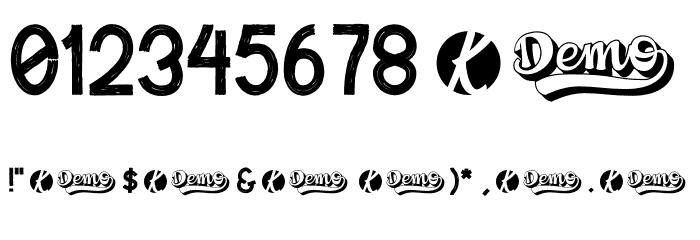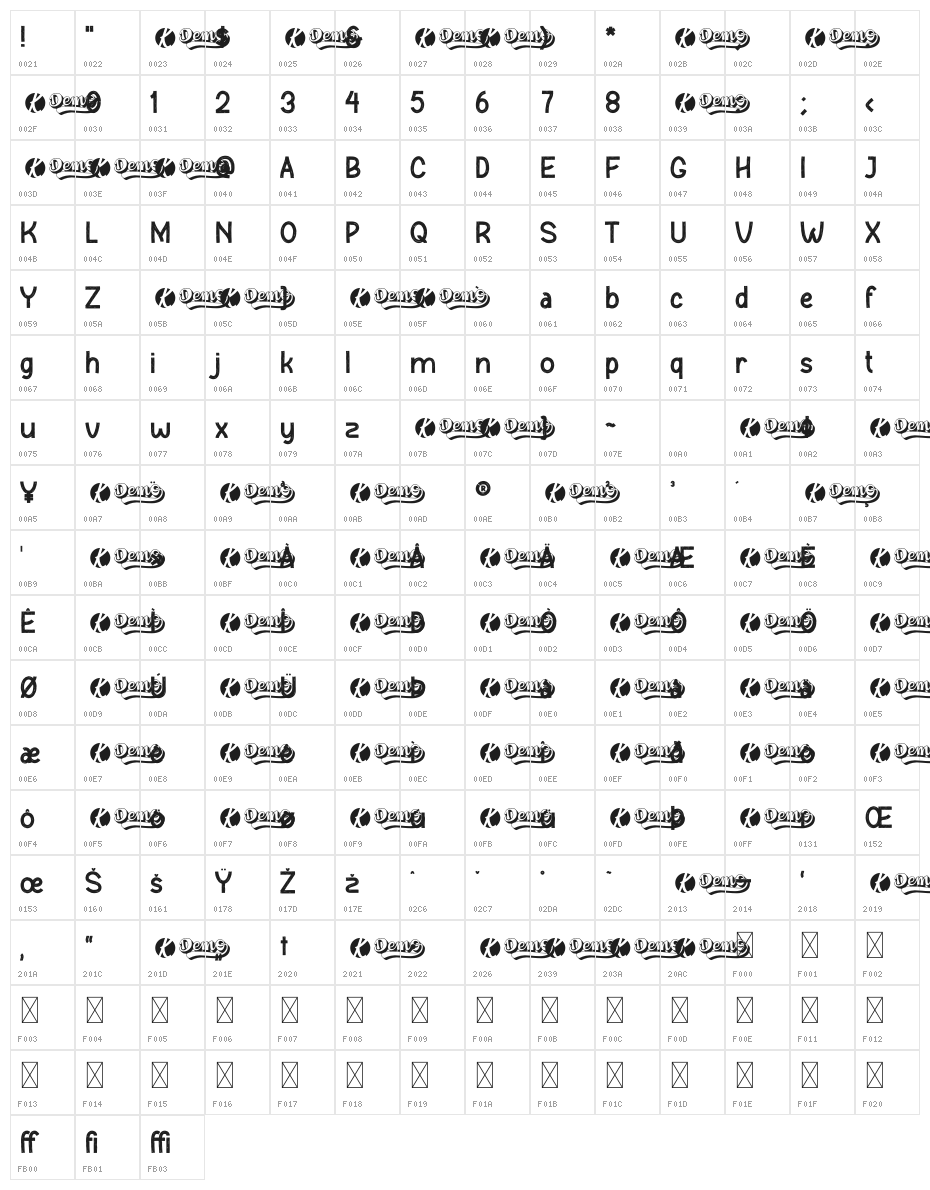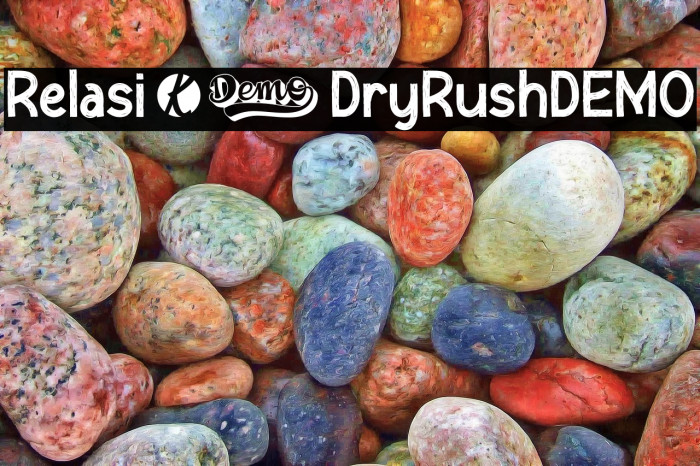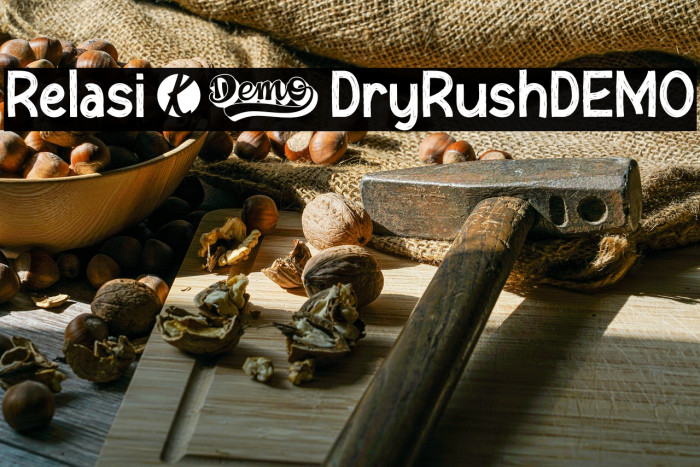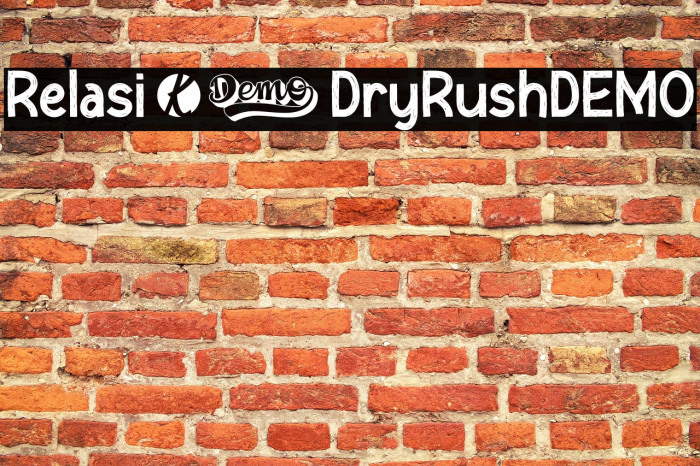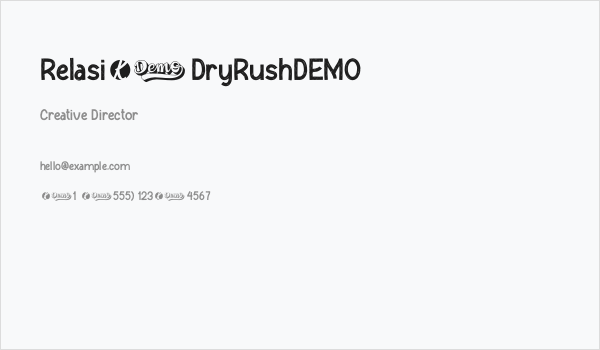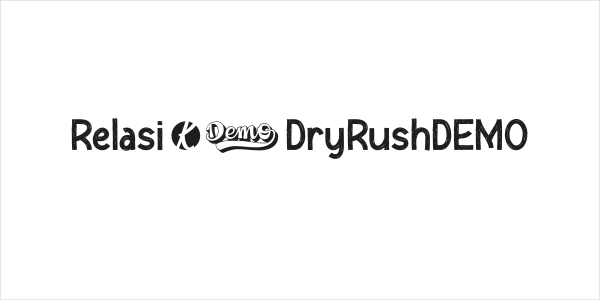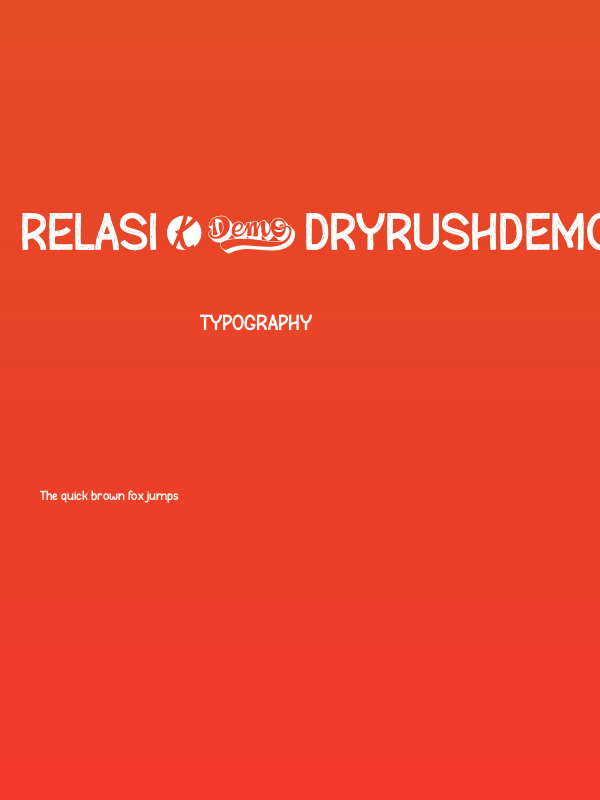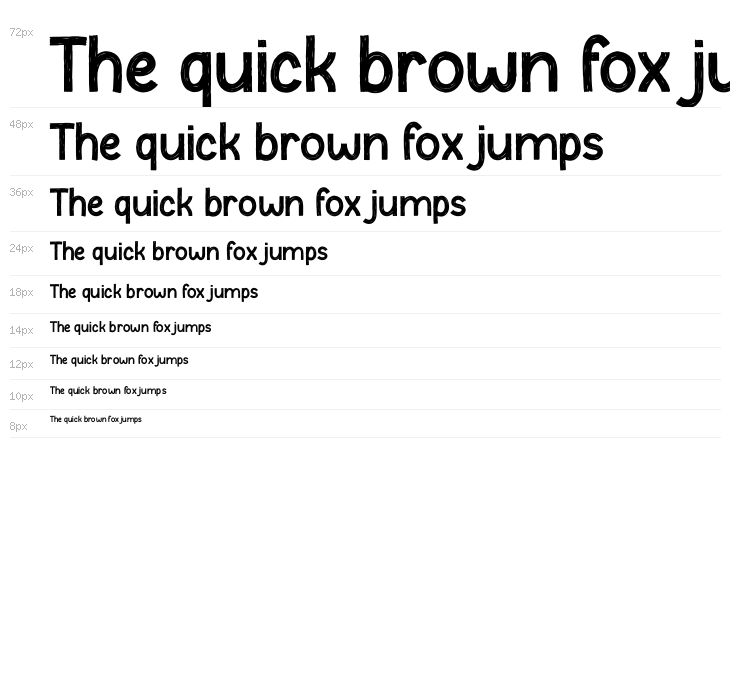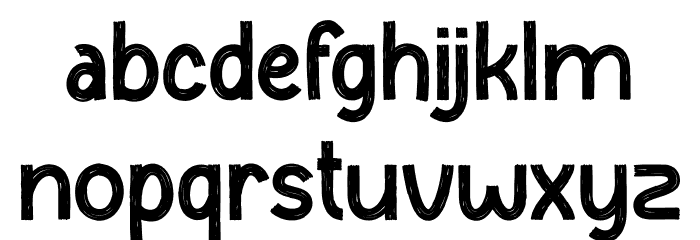
Relasi-DryRushDEMO Font
Relasi-DryRushDEMO Description
This font features a bold, hand-drawn style with a textured appearance that mimics brush strokes. The uppercase and lowercase letters maintain a consistent width, giving it a balanced look. The characters have a playful and artistic flair, making them ideal for creative projects. The numbers and special characters follow the same design, ensuring uniformity across all text elements. This font's unique style is both eye-catching and versatile, suitable for various design needs.
| Overall Style | Artistic, Playful |
| Proposed Projects | Ideal for posters, logos, branding, and creative design projects that require a bold and artistic touch. |